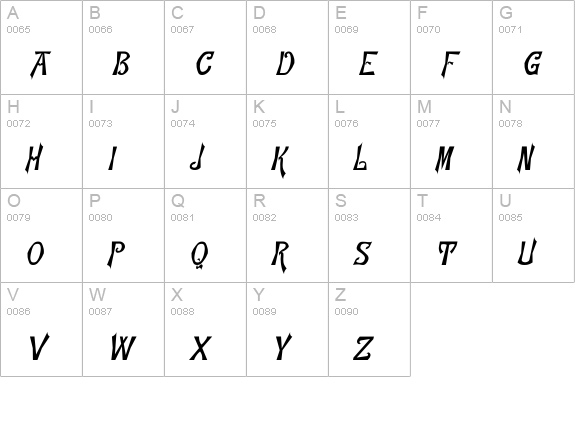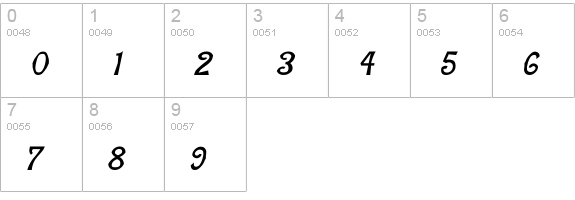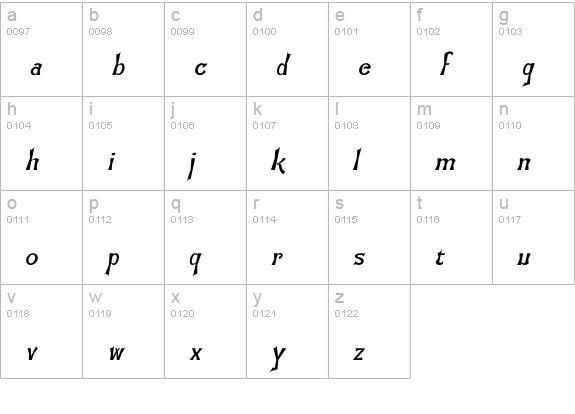
Flemish-Normal-Italic Font Details
Flemish-Normal-Italic is the standard, neutral, italic variant in the Flemish typeface family \xE2\x80\x94 well suited to general body text, paragraphs, and standard typographic work.
Introducing the captivating Flemish-Normal-Italic font - a harmonious blend of traditional Flemish design elements with a modern twist. This exquisite font exudes elegance and sophistication, making it perfect for a wide range of design projects. The Flemish-Normal-Italic font features a sleek and stylish italic style that adds a touch of flair to any text. Its clean lines and graceful curves make it a versatile choice for both print and digital applications. Whether you're designing a wedding invitation, a logo, or a website, this font is sure to make a statement. Best of all, the Flemish-Normal-Italic font is completely free to download at FontsMarket.com. So unleash your creativity and elevate your designs with this stunning font today!